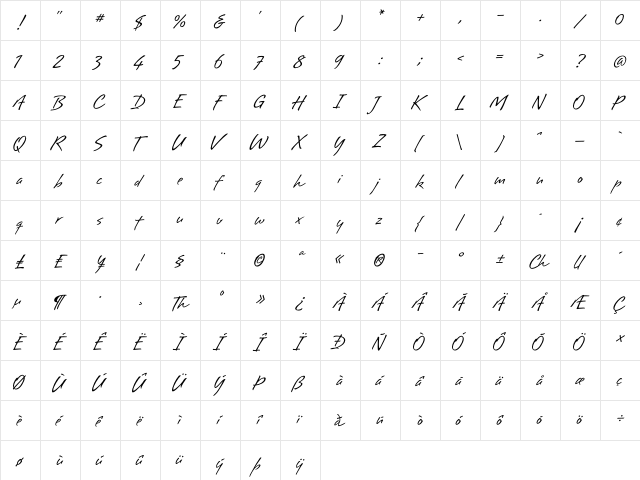
Brisa Alternates Regular
Design Context for Brisa Alternates Typeface
Brisa Alternates is a composed and adaptable typeface that performs quietly and consistently across a wide range of design contexts.